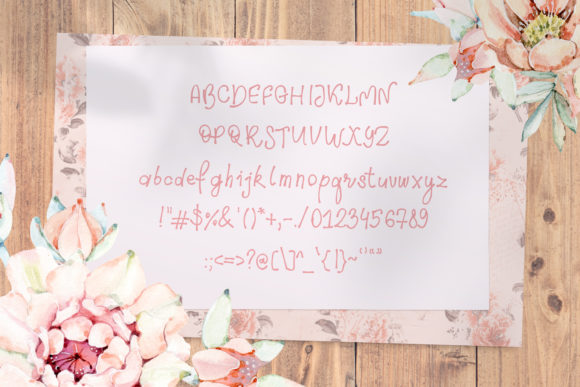
Introduction to Marcerista Font
Have you ever stared at a blank canvas, unsure of where to start your next creative project? The blank page can be intimidating, but sometimes all it takes is the right tool to spark your imagination. For designers, finding the perfect font can be a game-changer – and that’s where the Marcerista Font comes in.
This sweet and friendly handwritten font is more than just a design resource – it’s a key to unlocking your creativity. With its natural and unique style, the Marcerista Font is incredibly versatile, making it the perfect fit for a wide range of designs, from social media graphics to website headers. Whether you’re working on a personal project or a client’s request, this high-quality font is sure to elevate your design and leave a lasting impression.
Key Features of Marcerista Font
- High-quality design resource for creative projects, perfect for use in graphic design, digital art, and more.
- Features a unique, modern design with a bold and eye-catching aesthetic, ideal for making a statement in any creative project.
Honest Review: Marcerista Font
As a designer, I’m always on the lookout for high-quality design resources to elevate my creative projects. The Marcerista Font caught my eye due to its unique and stylish design.
- ✨ The font’s modern and sleek design makes it perfect for creative projects that require a touch of sophistication.
- ⚠️ The font may not be suitable for projects that require a more traditional or classic look.
- ⚠️ The font’s design may be too bold for certain applications, so it’s essential to test it before using it in your project.
Overall, I’m impressed with the Marcerista Font. Its high quality and unique design make it a valuable addition to any designer’s toolkit. While it may not be suitable for every project, it’s an excellent option for creative projects that require a touch of modern style.
Tips for Getting the Most Out of Marcerista Font
Use Marcerista Font for titles, headings, and body text to add a touch of elegance to your design. Experiment with different font sizes and colors to create a visually appealing design. Marcerista Font is a versatile font that can be used for various creative projects, from logos to brochures.
Marcerista Font is ideal for designing business cards, flyers, and brochures. It’s also great for creating social media graphics, presentations, and websites. With its high-quality design, Marcerista Font is a popular choice among designers and creatives.